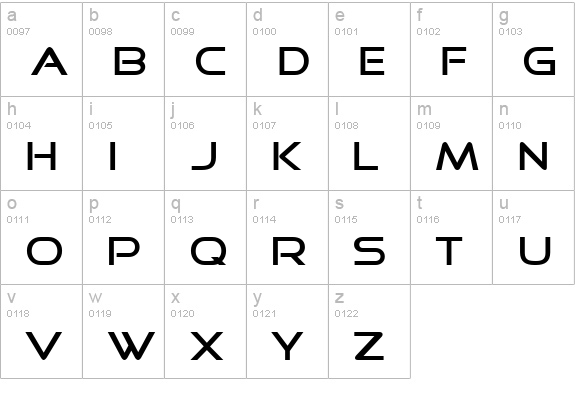
Good Times Font Details
Good Times font is a modern and stylish typeface that exudes a fun and upbeat vibe. With its clean lines and rounded edges, it is perfect for adding a touch of playfulness to any design project. Whether you're creating invitations, posters, or social media graphics, Good Times font will bring a sense of energy and excitement to your work. What's even better is that Good Times font is completely free to download at FontsMarket.com. That's right, you can access this fantastic font at no cost, making it a valuable addition to your font library. So go ahead and give your designs a fresh and lively look with Good Times font!